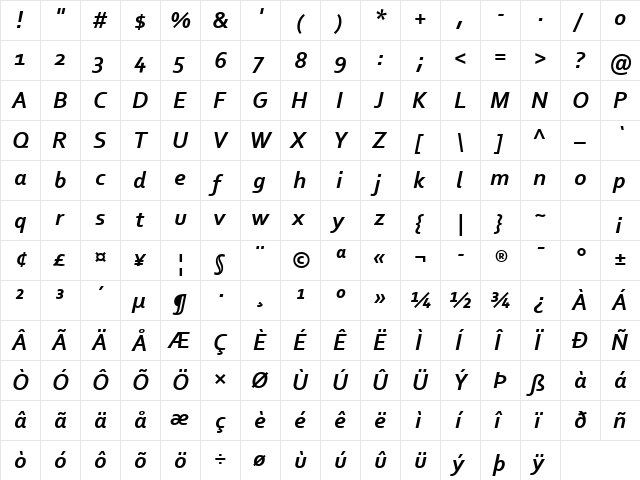
Corbel Bold Italic
| Foundry | Microsoft Corporation |
| Designer | Jeremy Tankard |
Design Context for Corbel Typeface
Corbel offers clean, dependable letterforms without strong stylistic allegiance, making it a practical choice for designers who need flexibility. The dynamic lean of this cut emphasises speed and emphasis in any layout. Its bold stroke weight gives it real presence on the page.